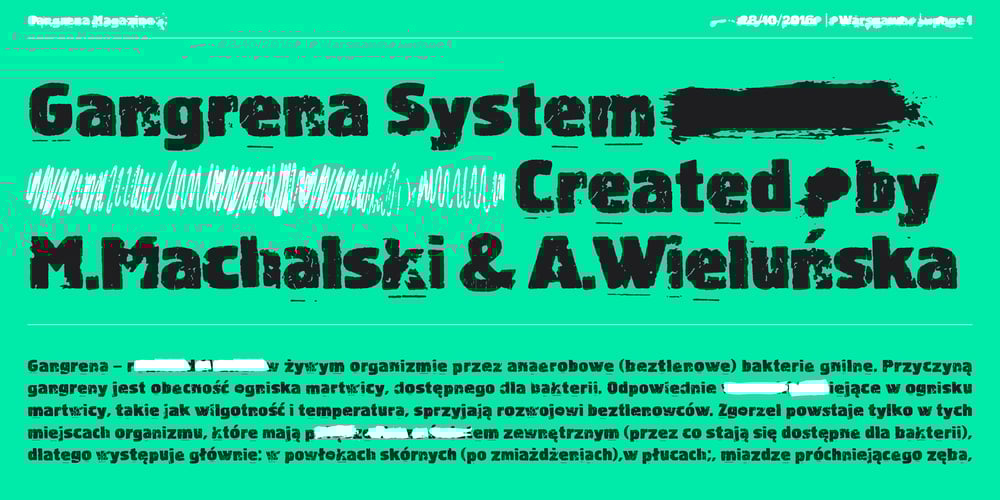
Gangrena
Gangrena font
Gangrena Font Family was designed by Mateusz Machalski, Ania Wieluńska and published by Stolat Studio. Gangrena contains 7 styles and family package options. Gangrena is a display font family, based on a old lettersets and style of UK punk posters from 80’s. It is characterized by a huge amount of automatic alternates, cycling in a random way trough the text. Each letter has three versions. To complement the font Gangrena has a set of six different brushes.